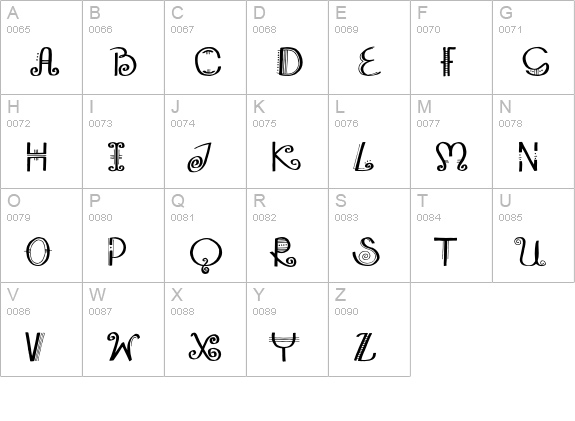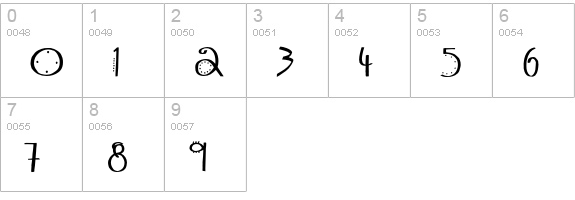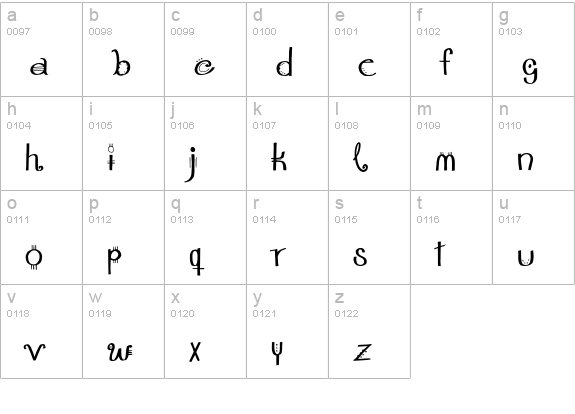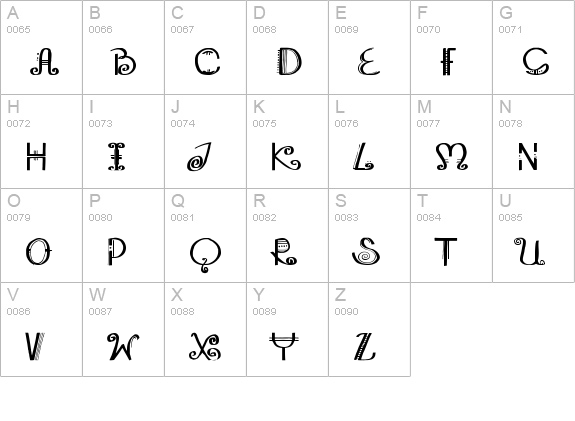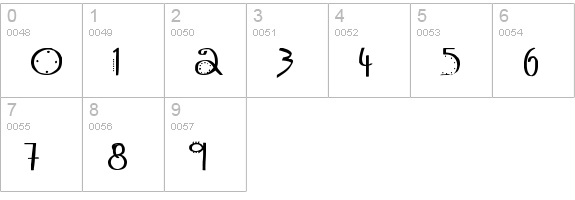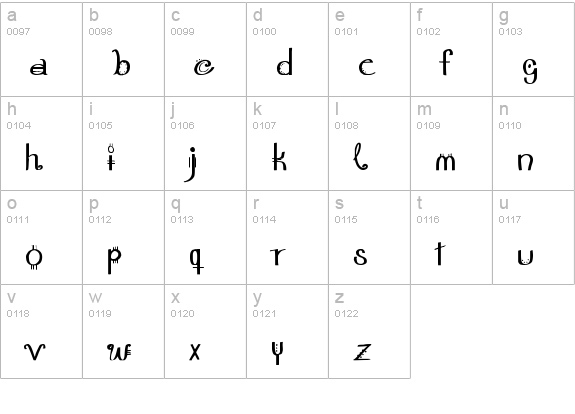
MonterreyEF Font Details
MonterreyEF is a stylish and versatile font that combines elegance with a touch of modernity. Its sleek lines and unique shapes make it perfect for a wide range of design projects, from branding to editorial layouts. The MonterreyEF font features a balanced combination of sharp edges and smooth curves, giving it a contemporary yet timeless appeal. What sets MonterreyEF apart is not just its captivating design, but also the fact that it is available for free download at FontsMarket.com. This means that designers and creatives can easily access this high-quality font without any cost, making it a valuable addition to their font collection. Whether you're working on a logo, poster, website, or any other creative project, MonterreyEF offers endless possibilities to elevate your design and make a lasting impression. Download MonterreyEF for free today and unleash your creativity with this modern and sophisticated font.